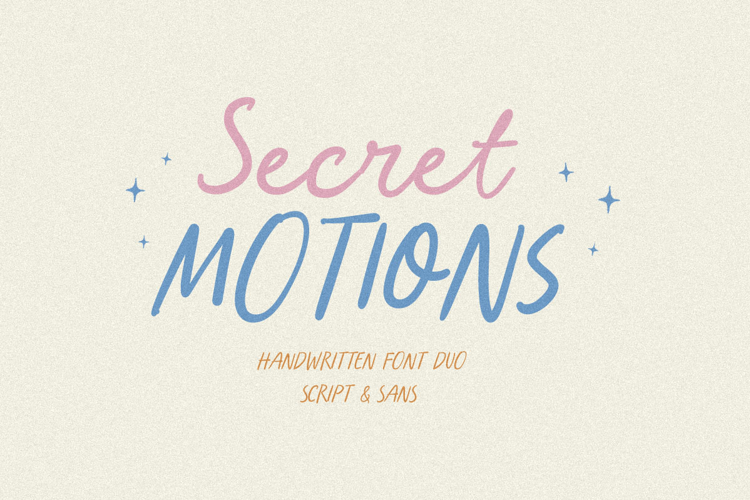
Secret Motions Font
Script Style
Sans Style
Secret Motions mixes a smooth handwritten script with a
simple friendly sans that feels light and cheerful. The script
adds personality and movement, while the sans keeps
everything clear and balanced. Playful, sweet, and slightly retro,
it’s perfect for quotes, posters, and social media visuals.